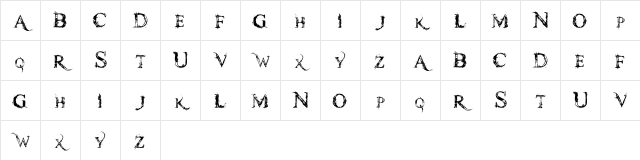
scorchflash Regular
Design Context for scorchflash
scorchflash is a composed and adaptable typeface that performs quietly and consistently across a wide range of design contexts.
Pro Tip: Use scorchflash in both headline and body roles to test its range before committing to a single application.